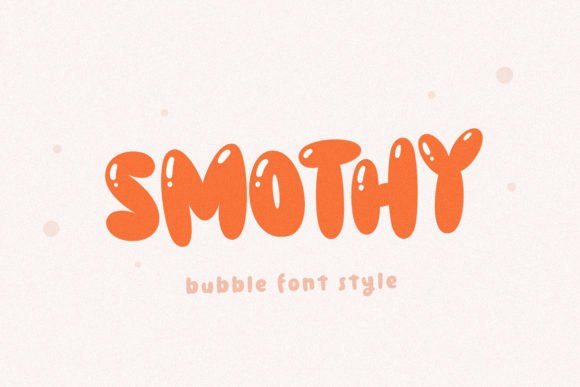
Introducing Smothy Font – the perfect display font for the modern and stylish individual! Created by HansCo, this font is ideal for adding a cute and playful touch to any design project.
Looking for the best font for modern resumes? Look no further than Smothy Font! Its bubble-style letters are sure to catch the eye of any hiring manager, giving your resume the extra edge it needs to stand out from the rest.
But Smothy Font isn't just for resumes – it's a versatile font that can be used in a variety of design projects. Add a touch of whimsy to your wedding invitations, create eye-catching social media graphics, or give your business cards a unique and playful look.
One of the best things about Smothy Font is its PUA encoding. With this feature, accessing all of the font's glyphs and swashes is effortless, allowing you to add even more personality and flair to your designs.